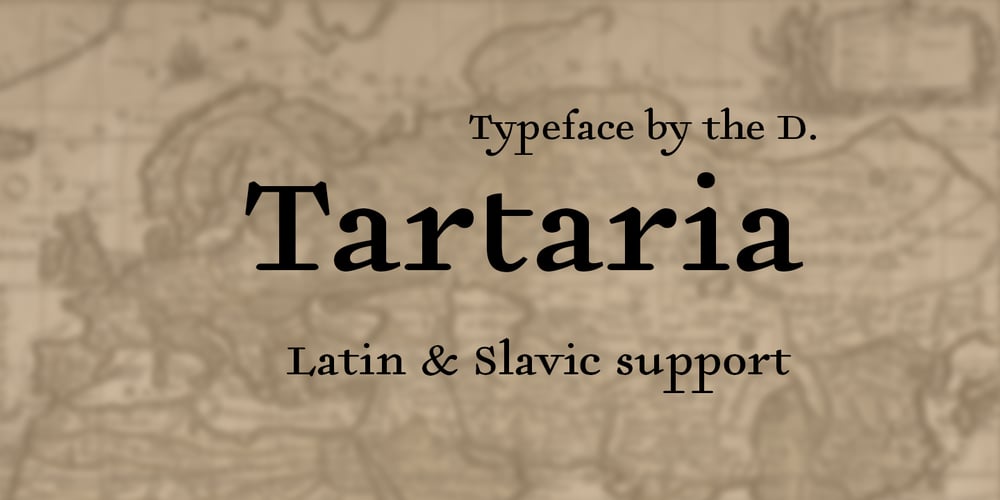
Tartaria Font Family was designed by Dima Pole and published by Dima Pole. Tartaria contains 1 styles and family package options. The font is devoted to the historical past of the peoples of Europe, which today is hidden, but which can not be lost forever, because it lives in the genetic memory and hearts of people. Beautiful font in the historical traditions of 17-19 centuries. Elegant, luxurious, sweet. Some forms and combinations of forms are not always ordinary, but always interesting and exciting. – Letters for all Latin alphabets – Letters for all Slavic alphabets – Ligatures. All standard (ff, fi, fj, etc.) as well as fb, fk, tt, ft – Stylistic alternates a, y, g – Ordinals – Fractions – Historical forms of letters s, я – Historical ligatures ss, si, st – Historical Slavic letters – Lowercase alternates for ж, к, я, ect. – National ligatures: German ss, Icelandic and French ae, oe, Dutch ij – Uppercase German SS (Eszett Große) – Currencies: dollar, ruble, euro, pound, cent, yen and more…